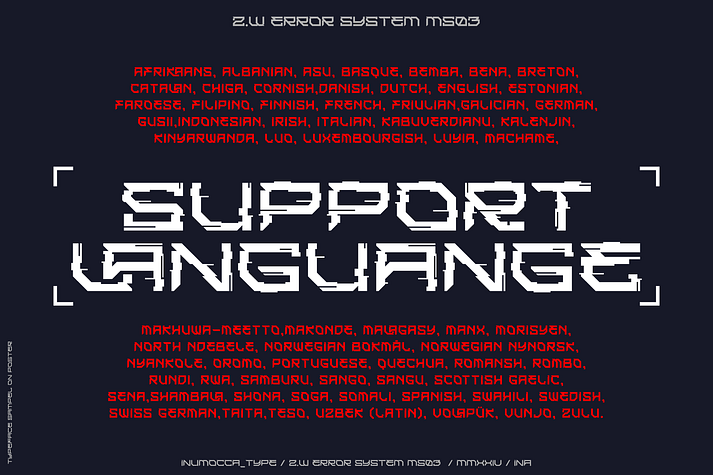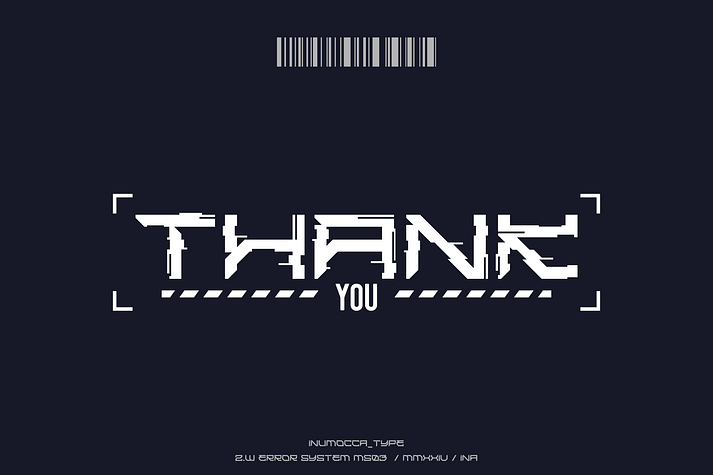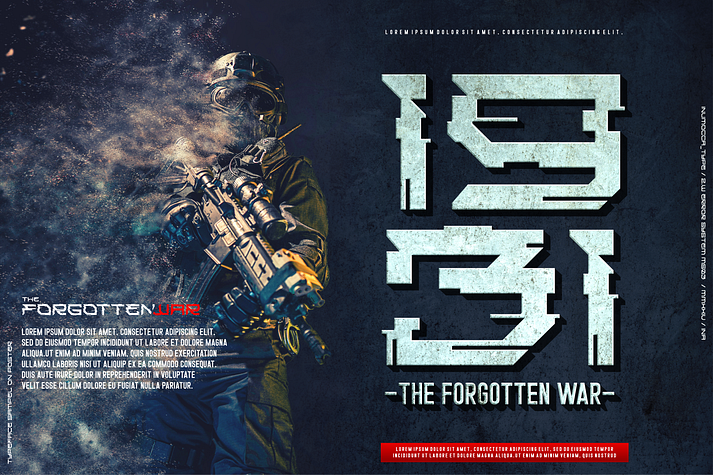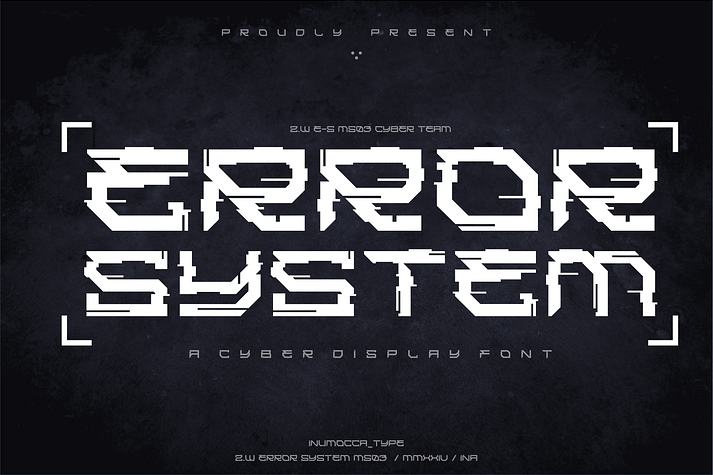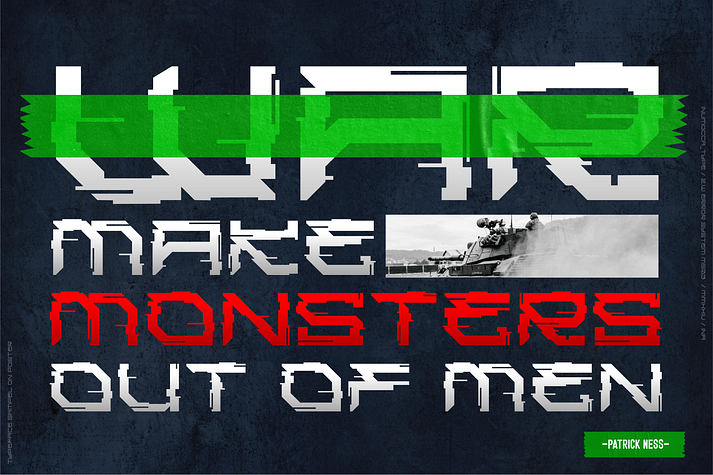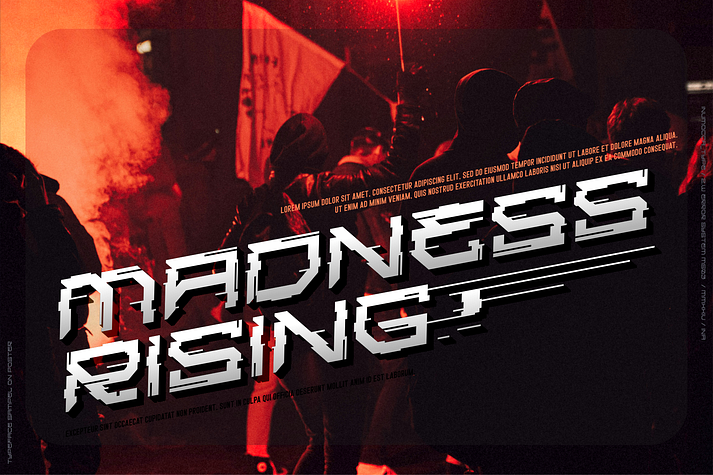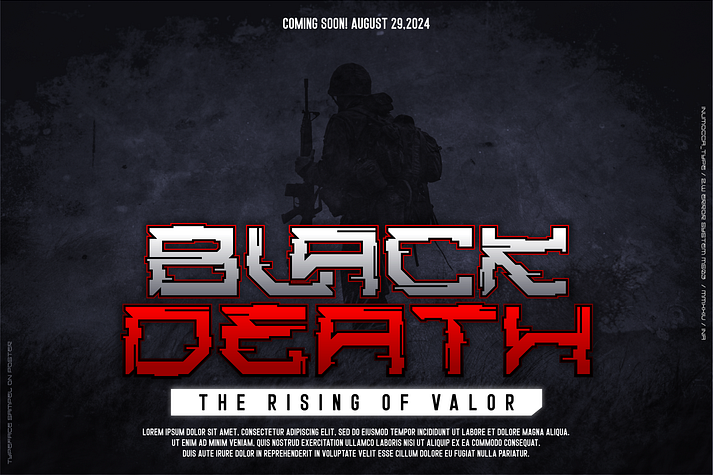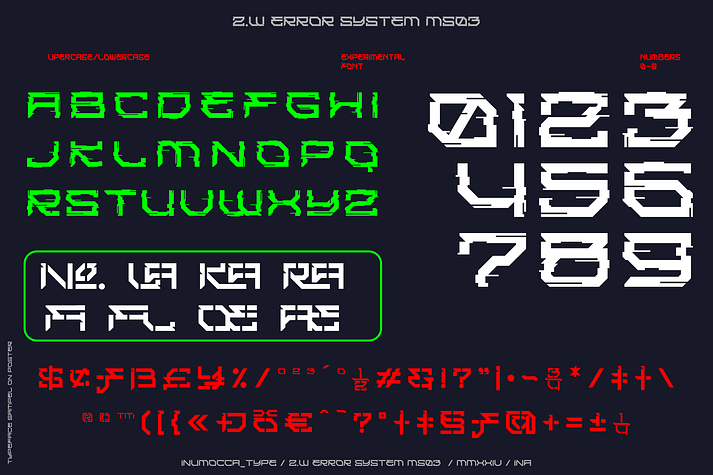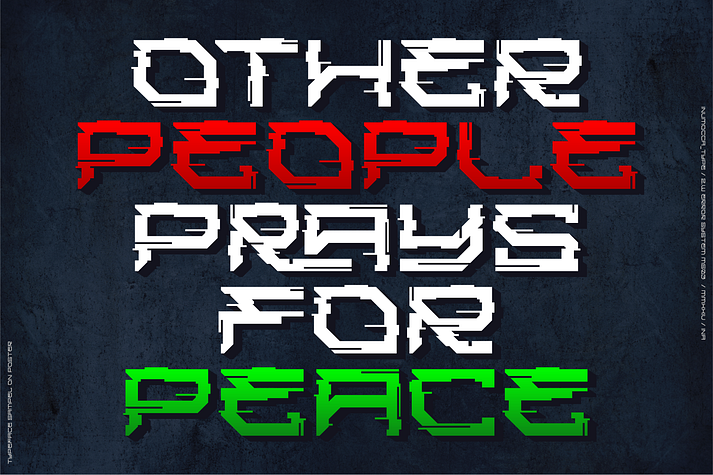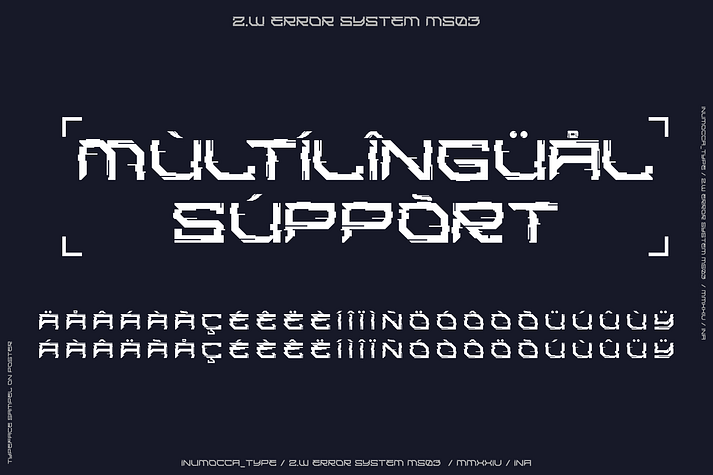
ZW Error System
ZW Error System is a font family. This typeface has two styles and was published by inumoccatype.
Z.W ERROR SYSTEM a Cyber Display Font Inspiration by Cyber Look, Military design, Rebel, Modern Technology, Synthwave, Sci-fi Movie Poster, science and Space Theme. Really great font to covering your Project, like poster Game, mecha poster, logotype, Website Interface, Magazine, Branding, Logos, and more your project design.
• Unique glyphs
• Multilingual Characters
• UPPERCASE/lowercase
• Numeric
• Symbol
• Punctuation Character
• PUA encoded
• Ligature Feature